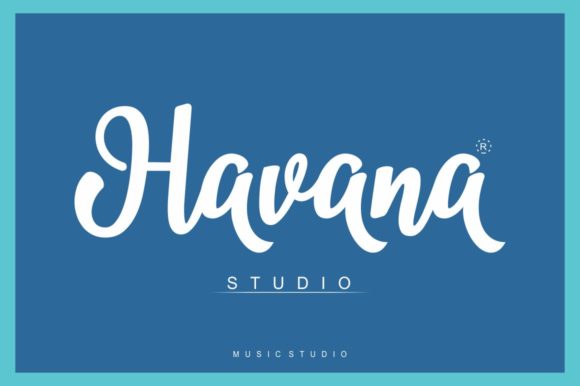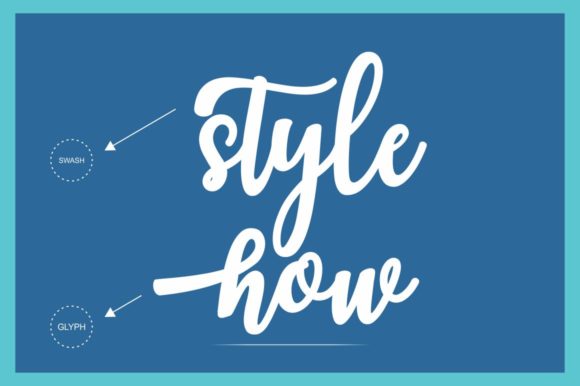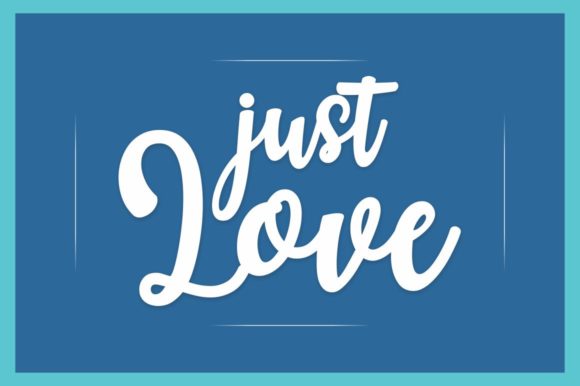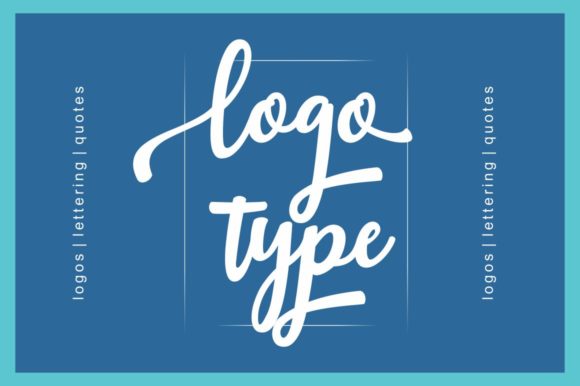
About Cinderella Font
Cinderella is a beautiful and bold handwritten font with a retro charm. Fall in love with its unique authenticity. Add this lovely freebie to your creations and take your designs to the next level!